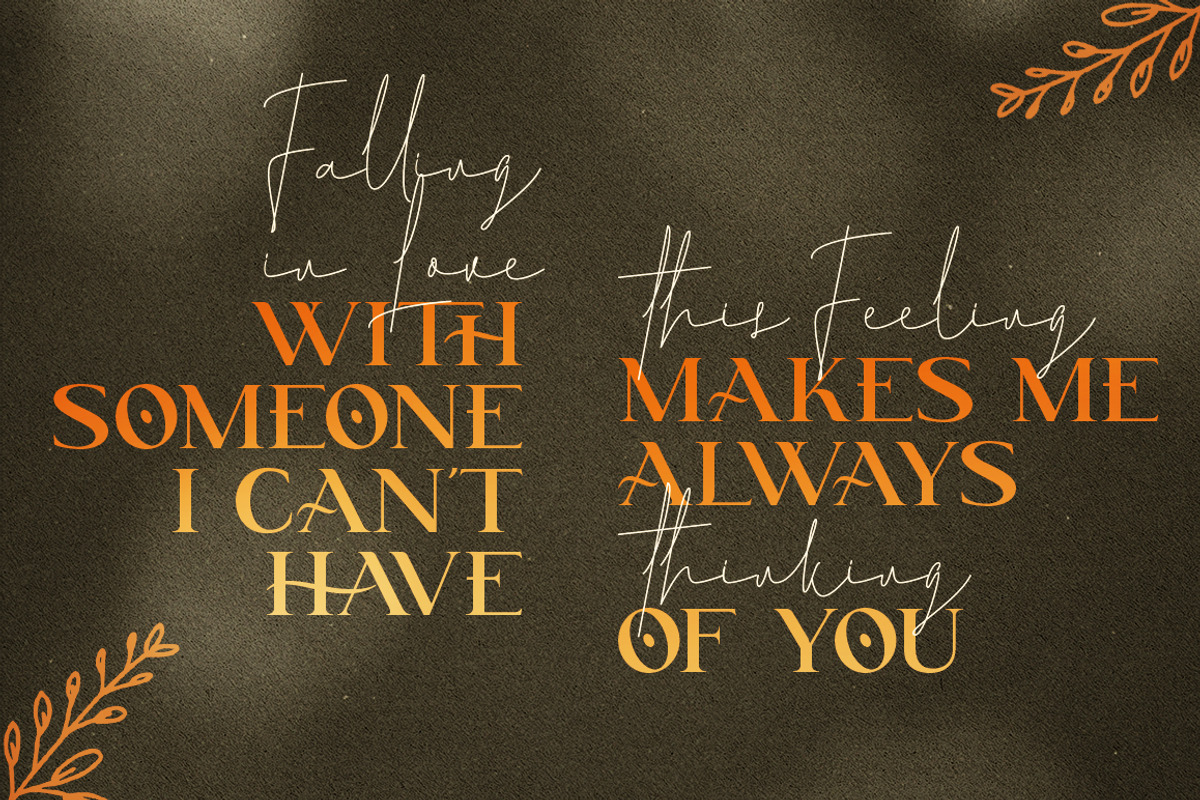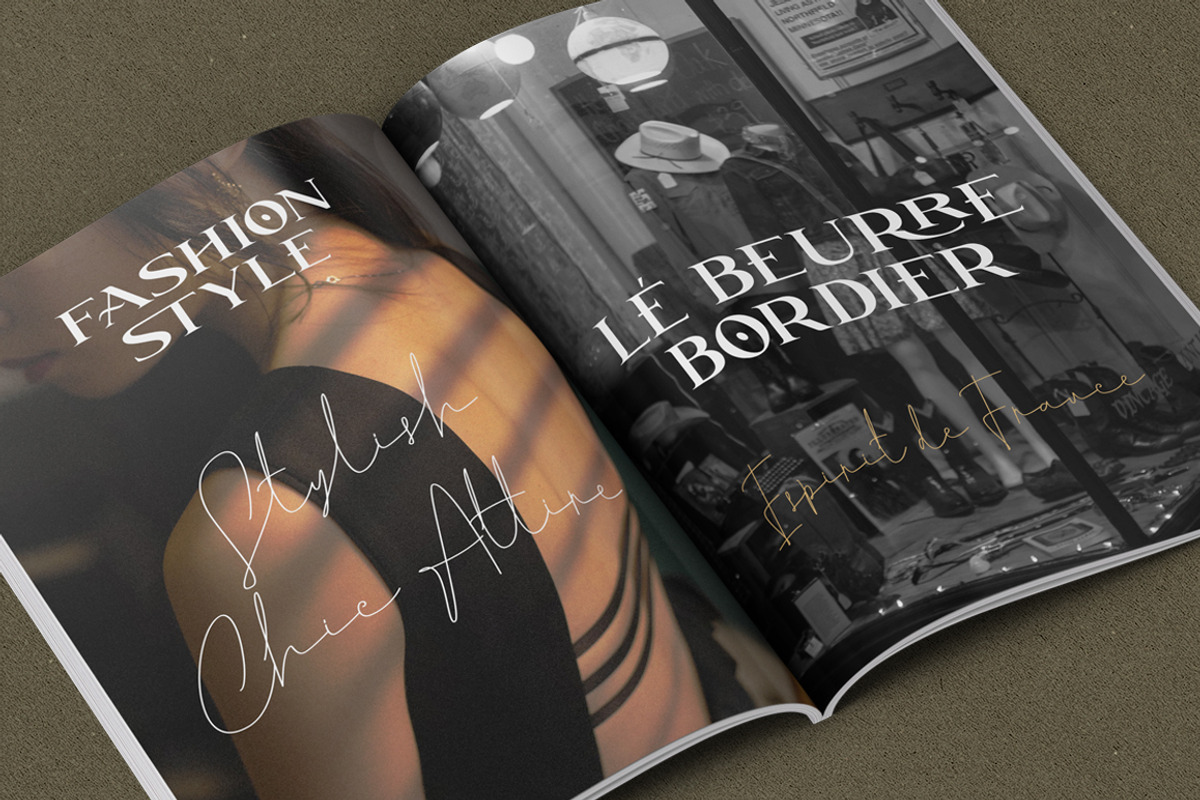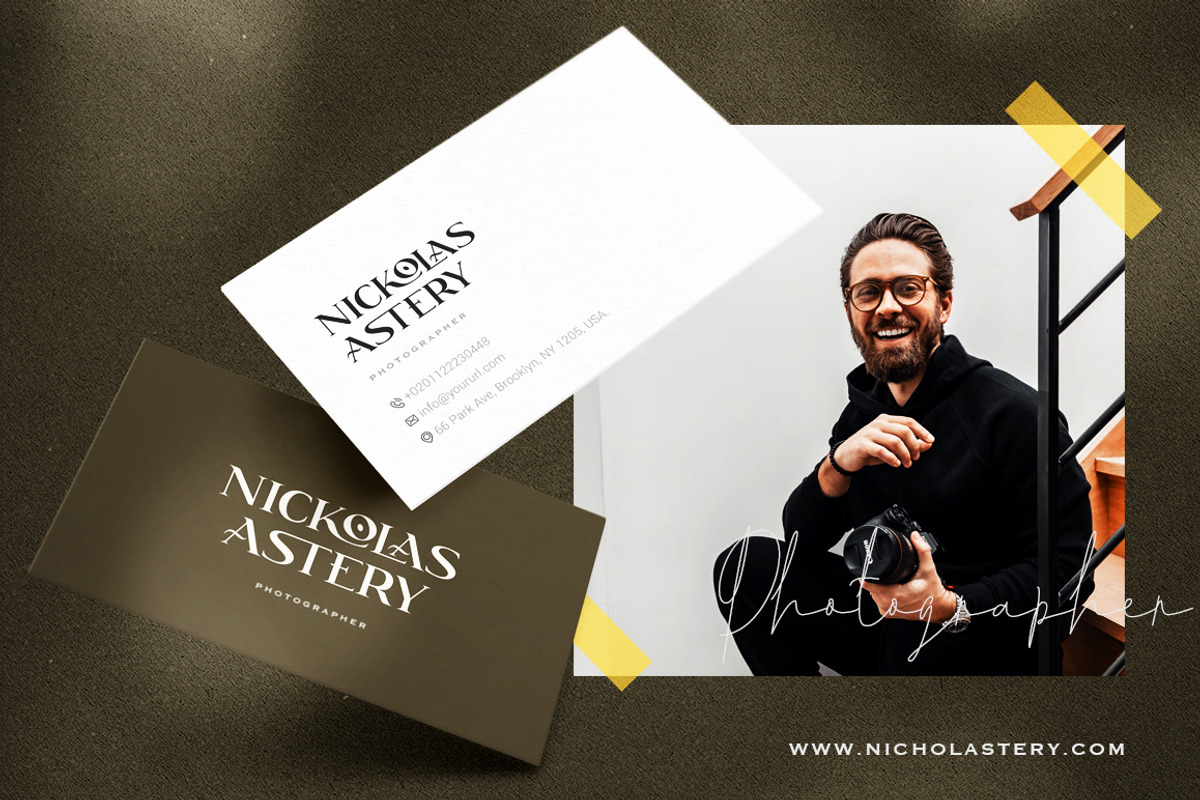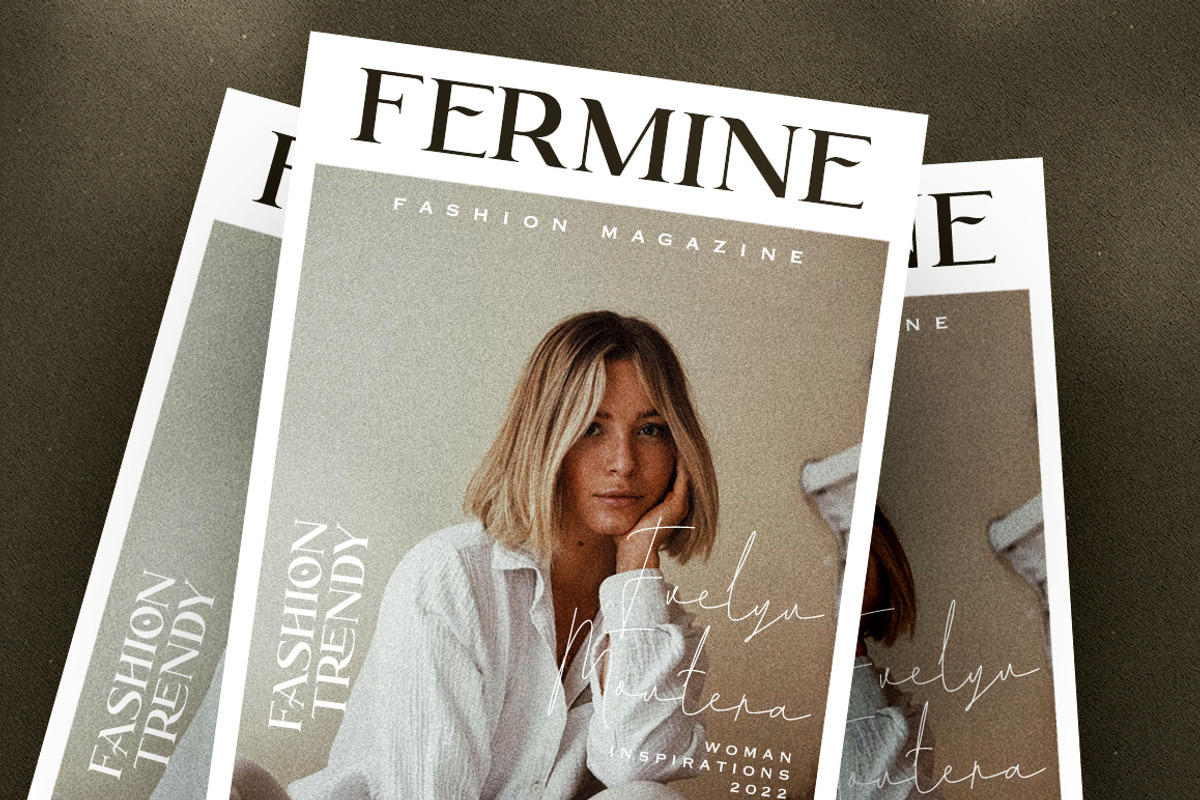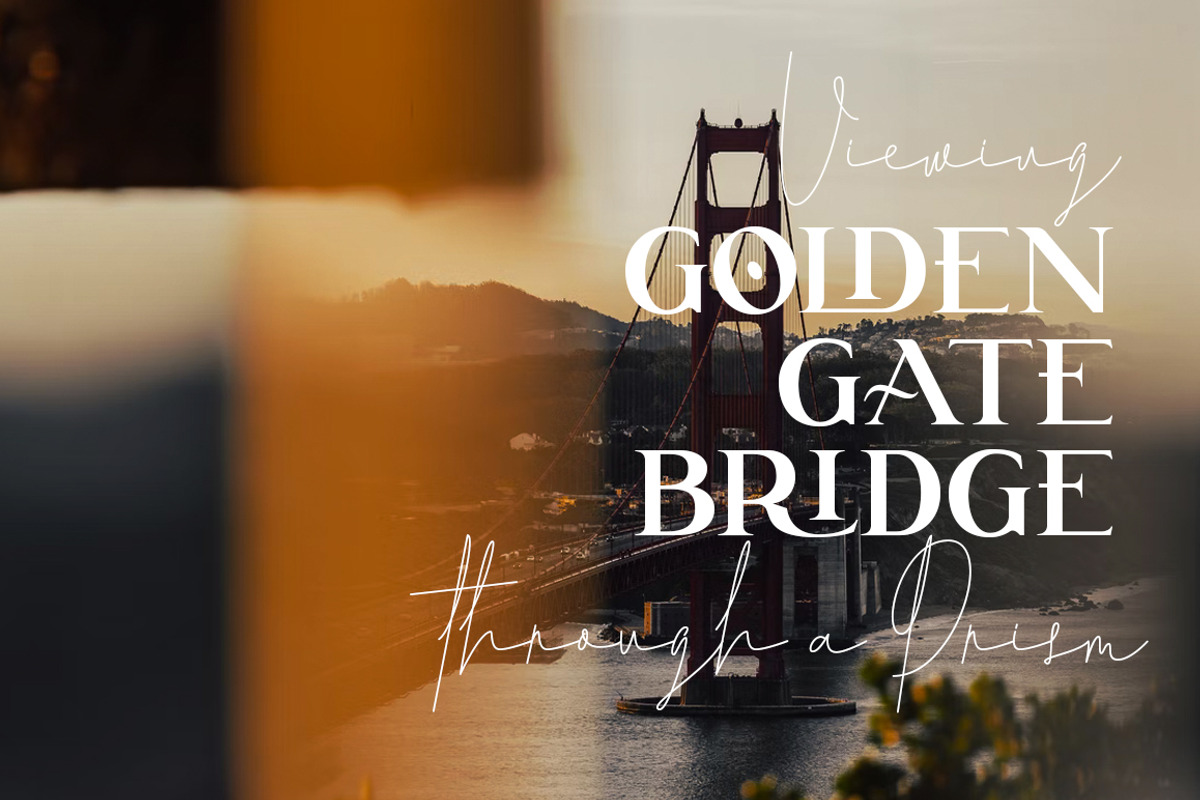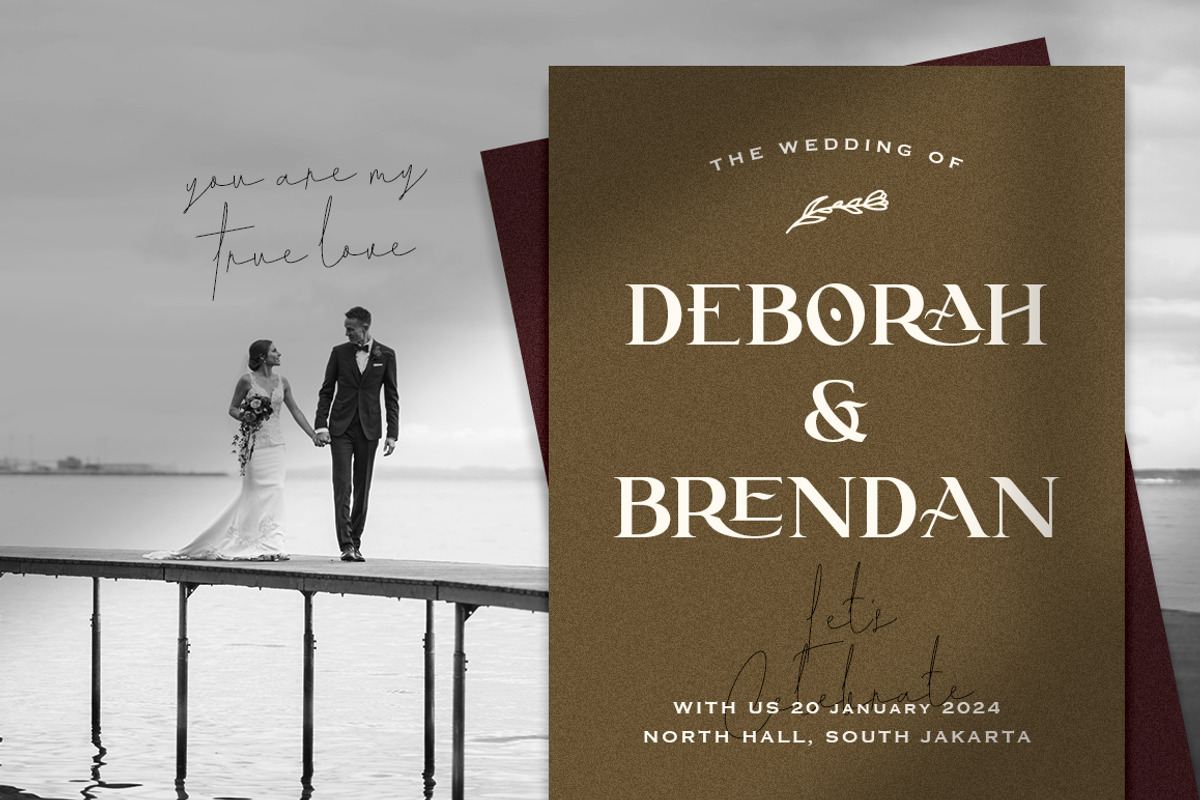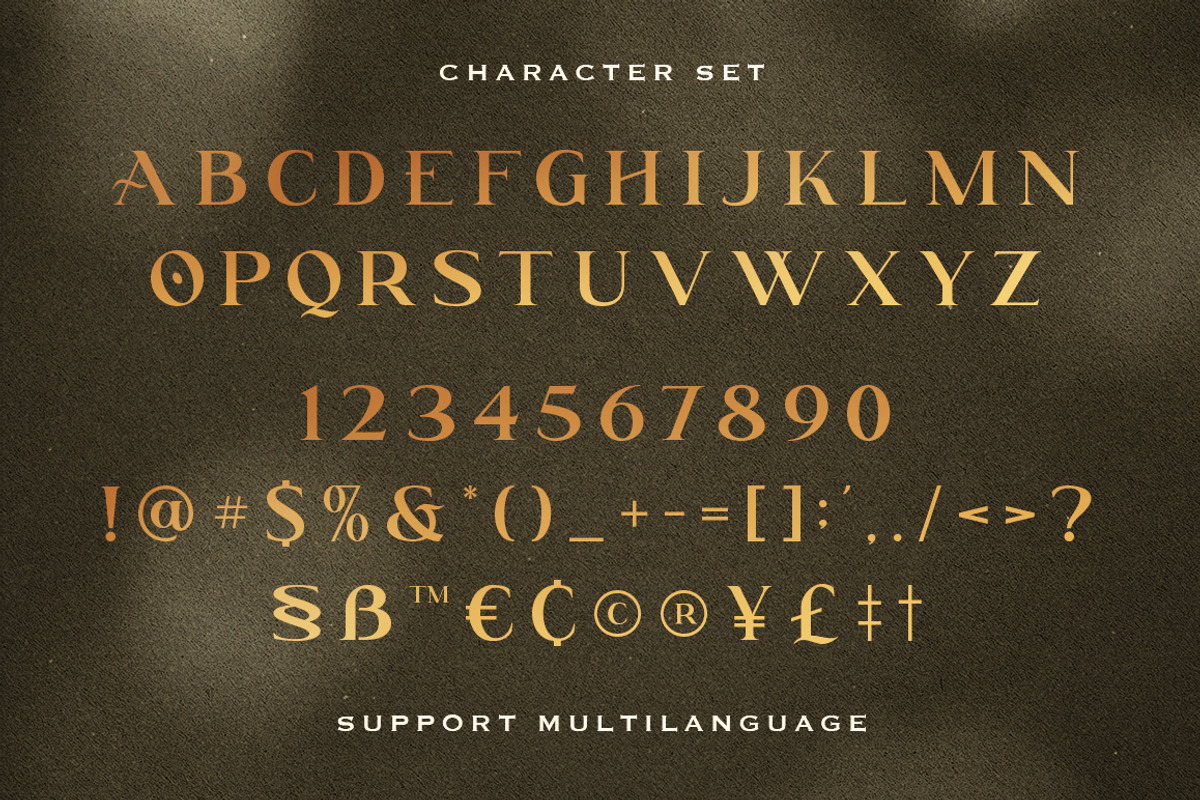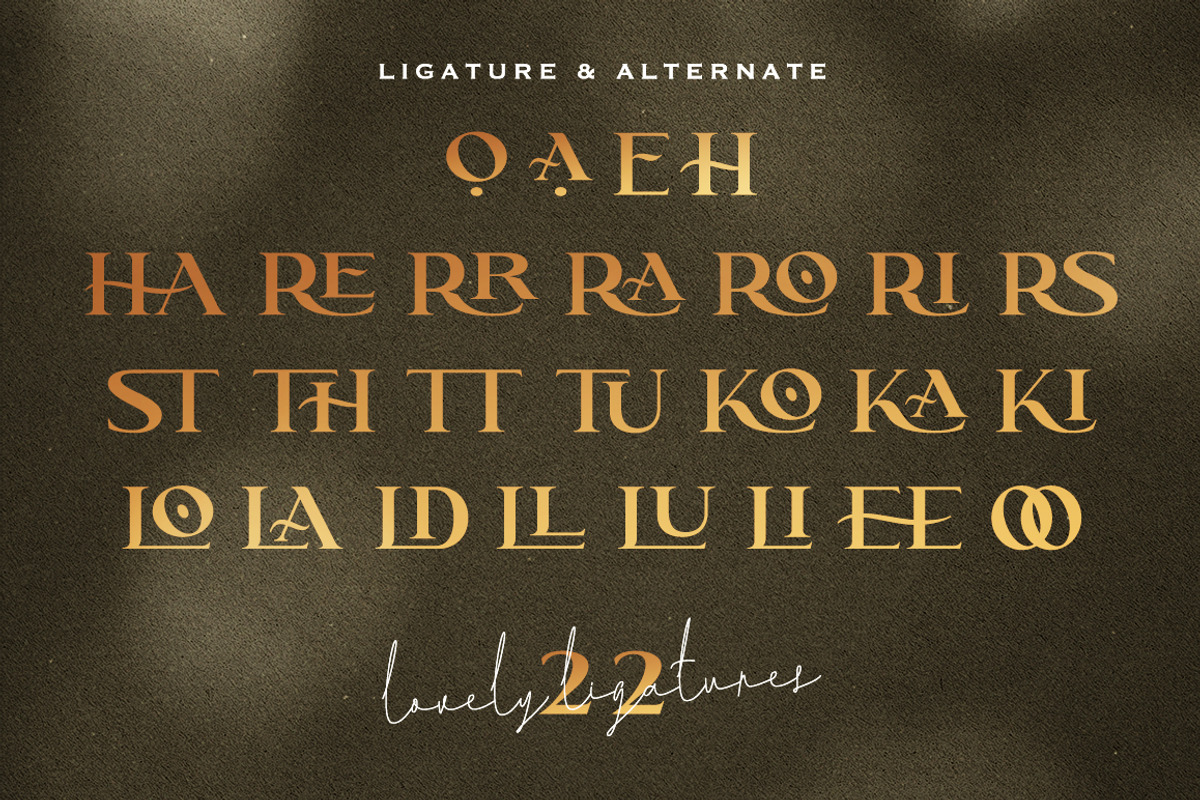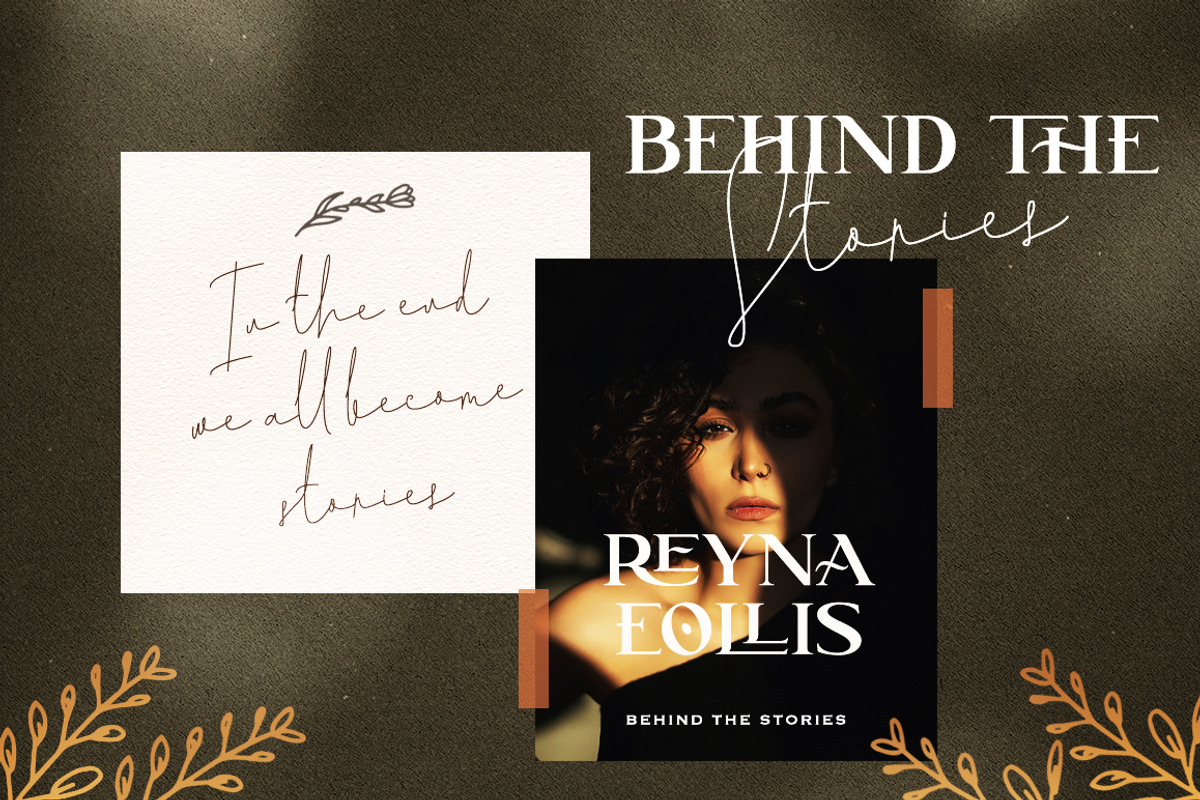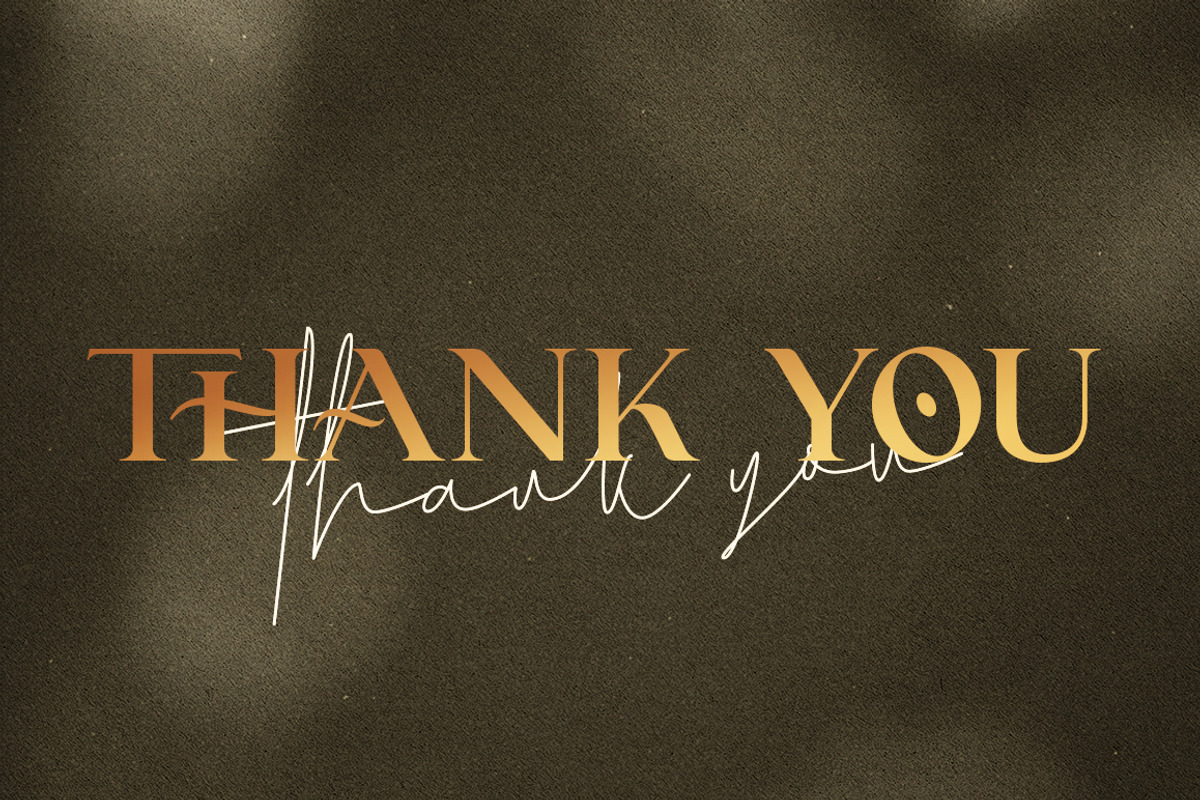
Rostera the Chronicles font duo
Have you ever seen a font with a different perspective, seen a font as an ingredient for cooking or as a person maybe? Because we did.
Let us introduce you to Rostera the Chronicles, when we create Rostera we’re imagine a font as a person, a person with a good personality, a person we like to sit with us and drink a cup of tea, a person who has a strong will and always spread a lovely word, always smile, a person we want to hug and give a big trust. And now that font is here, yes right here.
Rostera can be used for your branding, poster, merch, etc. If your project speaks the same way as Rostera speak then Rostera is perfect for you.
- Multilingual Language
- Alternate Characters
- 12 Lovely floral illustrations